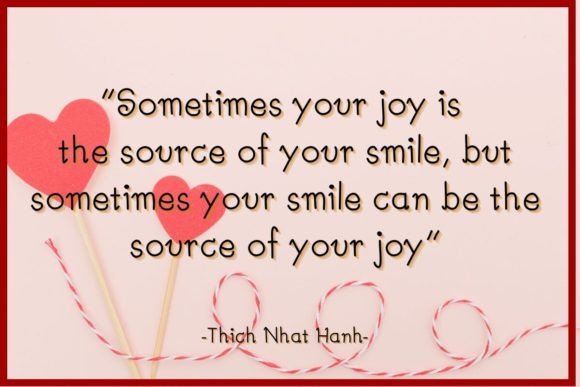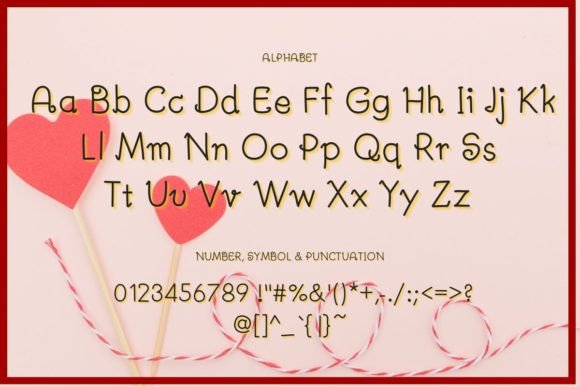
Meet Bonny Font: The Whimsical Typeface that Captures the Joy of Childhood
Are you tired of using the same old fonts in your designs? Do you want to add a touch of whimsy and innocent charm to your projects? Look no further than Bonny Font, a delightful and airy typeface that embodies the irrepressible joy and enchantment of childhood. In this article, we’ll take a closer look at Bonny Font, its unique features, and how it can be used to create designs that are both fun and captivating.
The Inspiration Behind Bonny Font
Bonny Font is inspired by the carefree and happy-go-lucky days of childhood. Its jovial round style is reminiscent of children’s laughter, the warmth of their smiles, and the magic of their imagination. The font’s creator aimed to capture the essence of childhood and translate it into typography, resulting in a typeface that is both playful and charming.
Key Features of Bonny Font
So, what makes Bonny Font so special? Here are some of its key features:
- Delightful and Airy Design: Bonny Font has a light and airy feel to it, making it perfect for designs that require a touch of whimsy and playfulness.
- Jovial Round Style: The font’s round style gives it a friendly and approachable feel, making it ideal for designs that need to convey a sense of warmth and approachability.
- Whimsical and Playful: Bonny Font is the perfect choice for designers who want to add a touch of playfulness to their designs. Its unique and quirky style is sure to capture the attention of your audience.
Bonny Font is a versatile typeface that can be used in a variety of design projects, from digital designs to craft projects. Here are some ways designers and crafters can use Bonny Font:
- Digital Designs: Use Bonny Font in digital designs such as social media graphics, blog posts, and website headers to add a touch of whimsy and playfulness.
- Craft Projects: Bonny Font is perfect for craft projects such as scrapbooking, card making, and DIY signs.
- Branding and Packaging: Use Bonny Font in branding and packaging designs to create a unique and memorable brand identity.
Tips for Using Bonny Font
Here are some tips for using Bonny Font in your designs:
- Pair with Other Fonts: Bonny Font can be paired with other fonts to create a unique and interesting contrast. Try pairing it with a sans-serif font for a modern look or a script font for a more elegant feel.
- Use in Headlines and Titles: Bonny Font is perfect for headlines and titles, where its playful and whimsical style can really shine.
- Experiment with Colors: Bonny Font looks great in a variety of colors, from bright and bold to soft and pastel. Experiment with different colors to find the perfect look for your design.
| Font Name | Bonny Font |
| Author | Home and Hug |
Bonny Font is a delightful and airy typeface that captures the joy and enchantment of childhood. Its jovial round style and whimsical design make it perfect for designers and crafters who want to add a touch of playfulness to their designs. With its versatility and unique features, Bonny Font is sure to become a favorite in your design toolkit. So why not give it a try and see how it can bring a touch of childhood magic to your designs?
Whether you’re a designer, crafter, or simply someone who loves typography, Bonny Font is definitely worth checking out. Its ability to evoke the carefree and happy-go-lucky days of childhood makes it a great choice for designs that need to convey a sense of fun and playfulness. So go ahead, get creative, and have fun with Bonny Font!